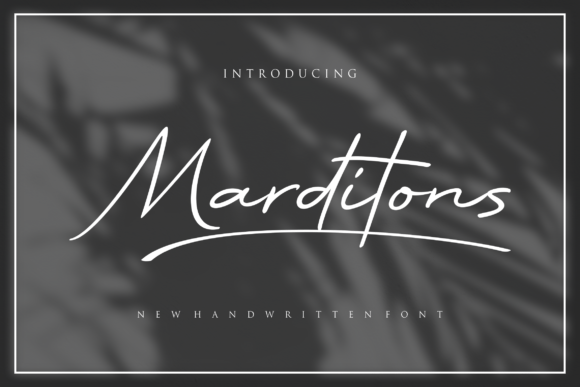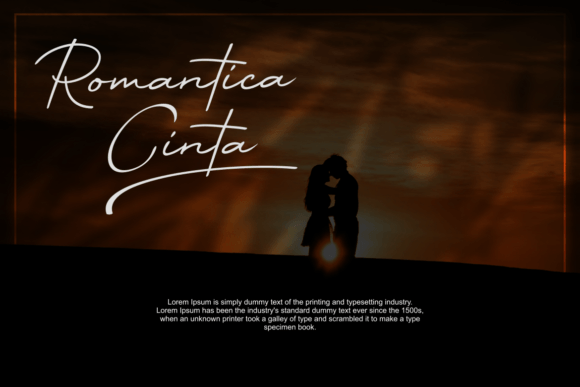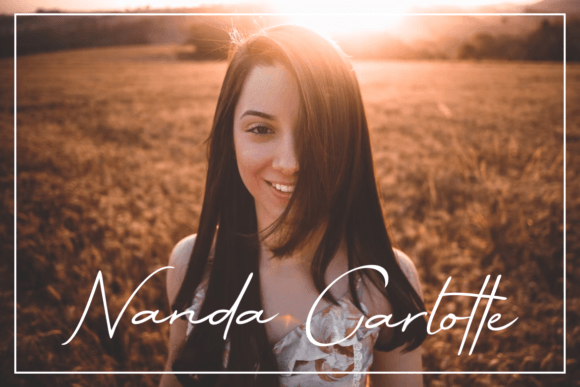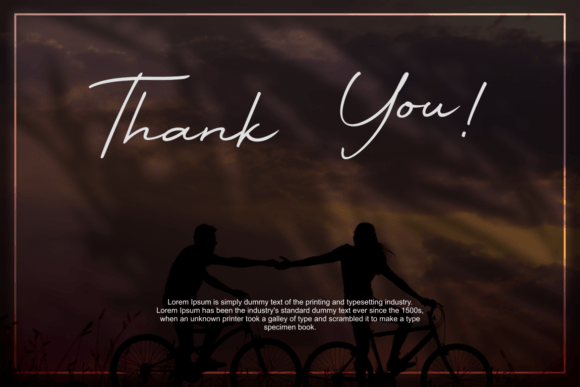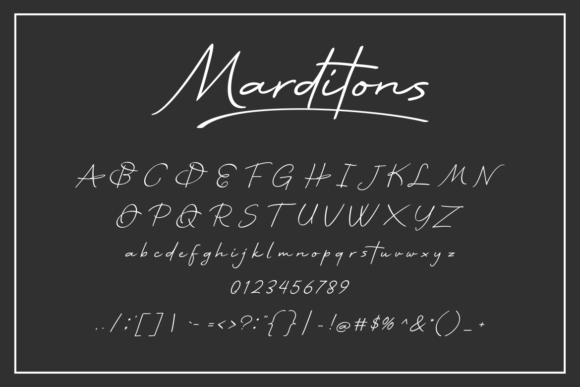
Marditons Font
The Marditons Font Download is a charming and elegant handwritten script designed to bring sophistication and warmth to your projects. With smooth strokes and refined curves, this font makes any design look polished and timeless. Whether you are creating wedding invitations, logos, or thank you cards, Marditons is crafted to leave a lasting impression.
A Script with Timeless Elegance
The Marditons script font combines classic handwritten beauty with a modern touch. As a result, it feels versatile, stylish, and balanced. Furthermore, it adapts easily across different design needs, from stationery to branding, making it a reliable addition to any designer’s library.
Handwritten fonts add intimacy and elegance to personal projects. The Marditons Font is ideal for wedding invitations, thank you notes, birthday cards, and festive stationery. Because of its elegant handwritten strokes, every card feels warm and unique. In addition, it ensures your designs convey genuine personality and care.
Branding and Logo Design with Marditons Font
Typography defines a brand’s identity. The Marditons handwritten font is perfect for boutique logos, product packaging, and marketing campaigns. Its charming and professional energy makes businesses look stylish and approachable. Therefore, it works especially well for lifestyle, fashion, and creative brands.
Posters, Titles, and Editorial Projects
The Marditons Font Download also shines in posters, banners, magazines, and book covers. It stays clear and attractive across all sizes while adding handwritten sophistication. Consequently, it is a dependable option for designers who want both readability and beauty.
In the digital space, fonts must adapt smoothly to all platforms. The Marditons typeface integrates seamlessly into Instagram graphics, Pinterest boards, YouTube thumbnails, and blogs. Because of its charming handwritten appeal, it helps digital projects look stylish, modern, and engaging.
Why Designers Choose Marditons Typeface
Designers love fonts that blend elegance with usability. The Marditons handwritten script maintains its refined look while being easy to use in diverse projects. This balance makes it suitable for both professionals and hobbyists. Moreover, its timeless handwritten charm ensures it will stay relevant for years to come.
Add Elegant Charm to Your Projects Today